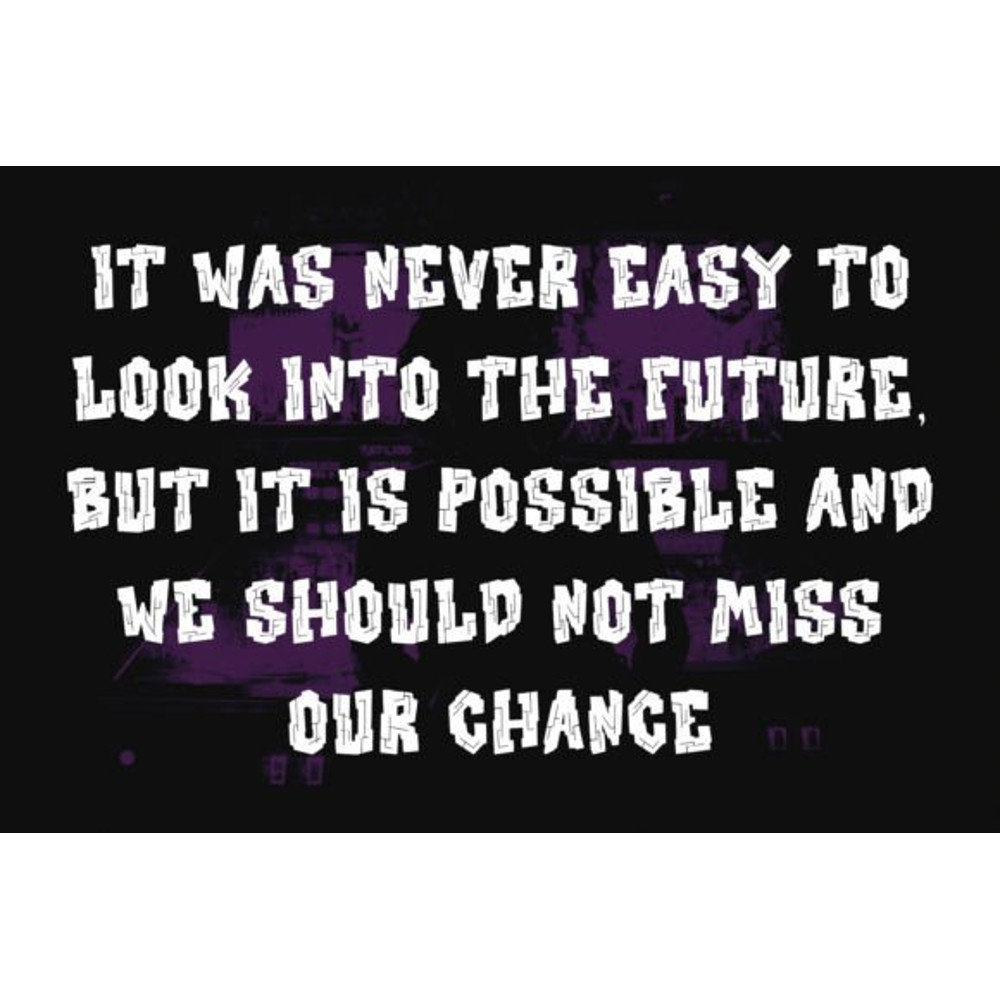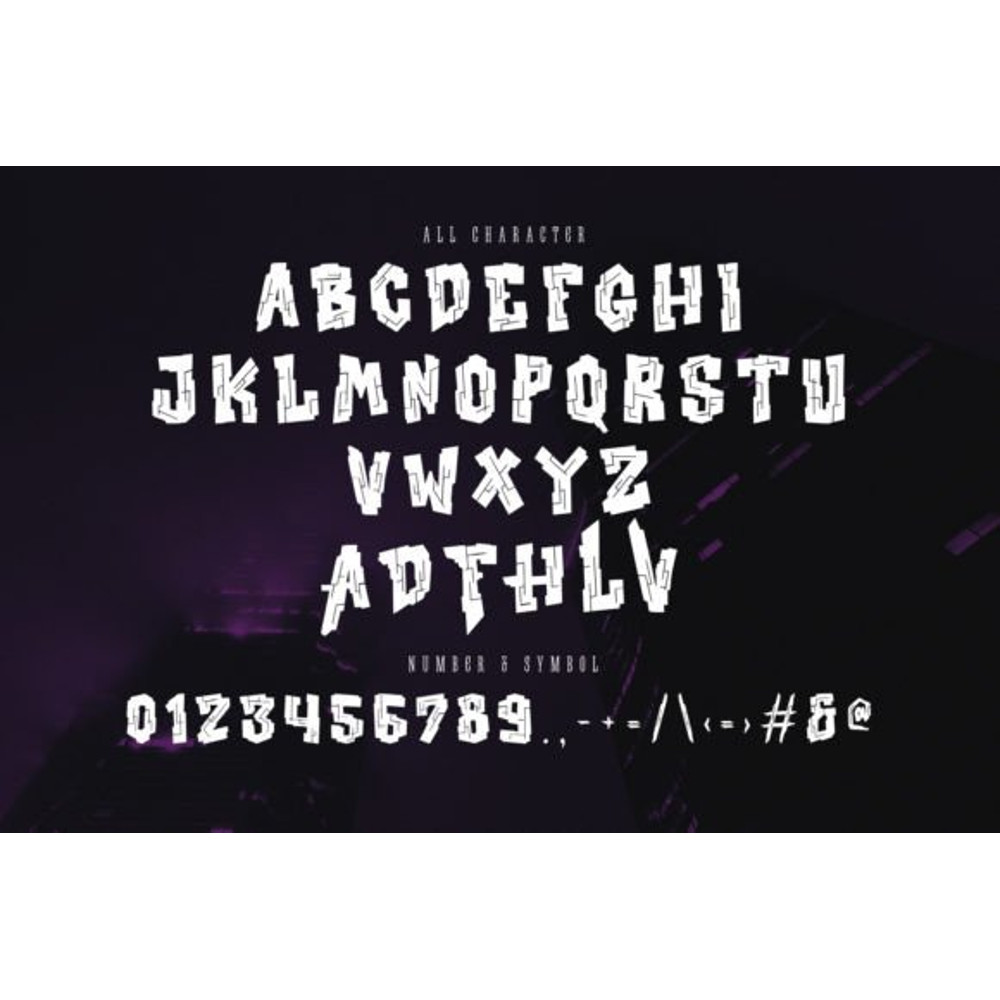
Fyltron Amex Font
Fyltron Amex techno display typeface. Heavy stroke, fun character with a bit of ligatures. To give you an extra creative work. Fyltron Amex techno display typeface support multilingual more than 100+ language. This font is good for logo design, Social media, Movie Titles, Books Titles, a short text even a long text letter and good for your secondary text font with script or serif. Make a stunning work with Fyltron Amex techno display typeface.